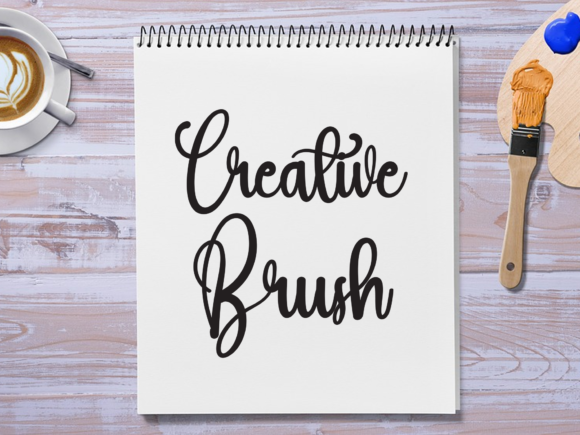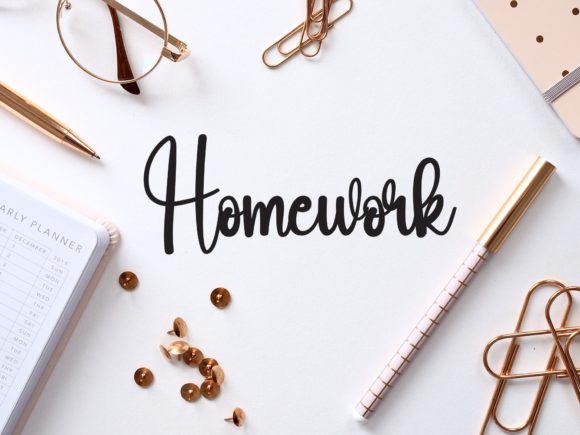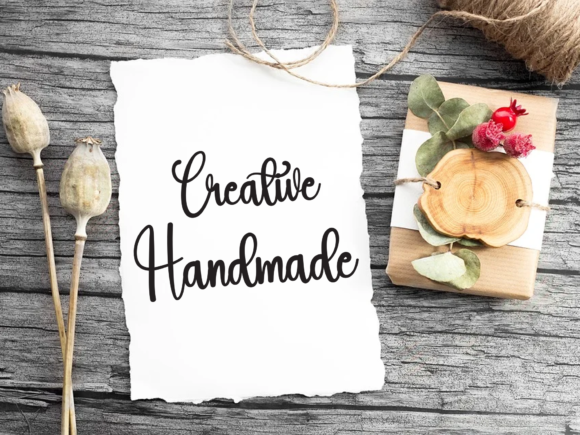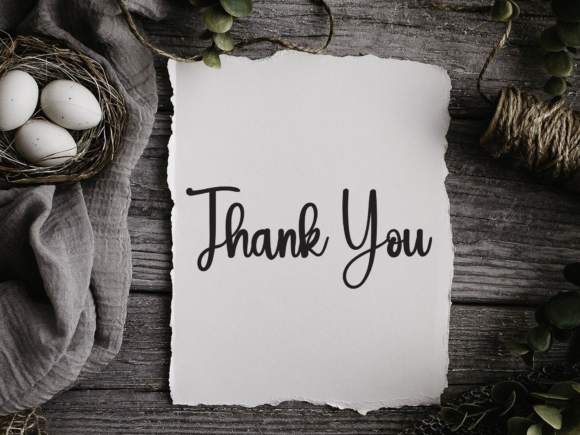
Introducing Almond Font: The Chic Handwritten Font for Creative Projects
Are you a designer or crafter looking for a unique and stylish font to elevate your creative projects? Look no further than Almond Font, a beautiful handwritten font that is sure to impress. In this article, we’ll take a closer look at Almond Font, its features, and how it can be used to add a touch of elegance to various products.
What is Almond Font?
Almond Font is a carefully crafted handwritten font that exudes a sense of sophistication and style. Created with great attention to detail, this font is designed to meet the expectations of designers and crafters who demand high-quality typography. With its smooth and flowing lines, Almond Font is perfect for adding a personal touch to a wide range of projects.
Key Features of Almond Font
- Handwritten style: Almond Font boasts a beautiful handwritten style that is both elegant and approachable.
- Carefully crafted: Each letter has been carefully designed to ensure that the font looks great in any context.
- Versatile: Almond Font can be used for a wide range of projects, from digital designs to print materials.
- Easy to read: Despite its elegant style, Almond Font is easy to read, making it perfect for body text and headings.
Using Almond Font for Creative Projects
Almond Font is an incredibly versatile font that can be used for a wide range of creative projects. Here are just a few ideas to get you started:
- Branding and logos: Use Almond Font to create a unique and memorable logo for your business or brand.
- Digital designs: Add a touch of elegance to your digital designs, such as social media graphics, blog posts, and email newsletters.
- Print materials: Use Almond Font for print materials, such as brochures, flyers, and business cards.
- Crafting and DIY projects: Add a personal touch to your crafting and DIY projects, such as handmade cards, gift tags, and labels.
Tips for Using Almond Font
Here are a few tips to help you get the most out of Almond Font:
- Use it sparingly: While Almond Font is beautiful, it can be overwhelming if used too much. Use it sparingly to add emphasis and create visual interest.
- Pair it with other fonts: Experiment with pairing Almond Font with other fonts to create a unique and interesting typography combination.
- Adjust the size and color: Play around with different sizes and colors to find the perfect combination for your project.
Almond Font is a beautiful and versatile handwritten font that is perfect for designers and crafters looking to add a touch of elegance to their creative projects. With its smooth and flowing lines, Almond Font is sure to impress. Whether you’re creating digital designs, print materials, or crafting and DIY projects, Almond Font is a great choice. So why not give it a try and see how it can elevate your creative projects?